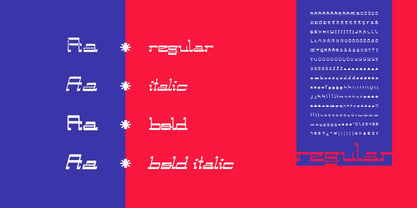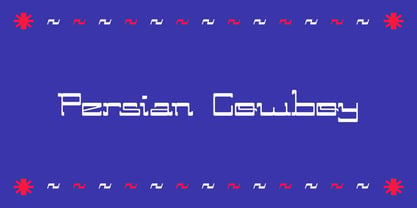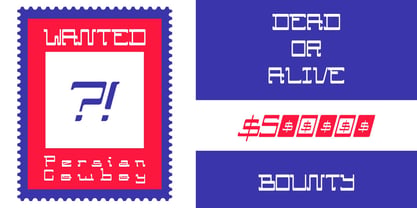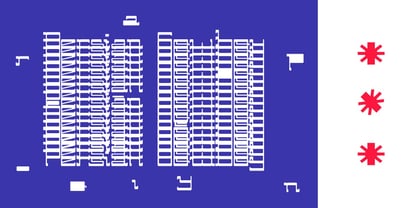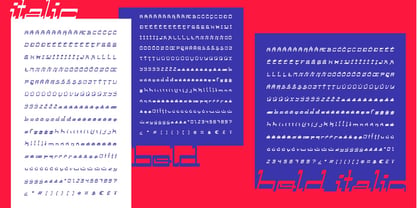
Persian Cowboy
The Persian Cowboy Font Family was designed by Clara Vidigal and published by oN tYPe. Persian Cowboy contains 4 styles and family package options. More about this family
Persian Cowboy blends Arabic-inspired forms with inverted contrast, fusing Eastern elegance and Western grit into a bold, futuristic display typeface.